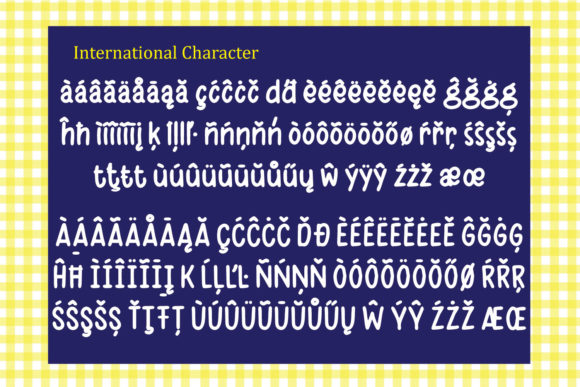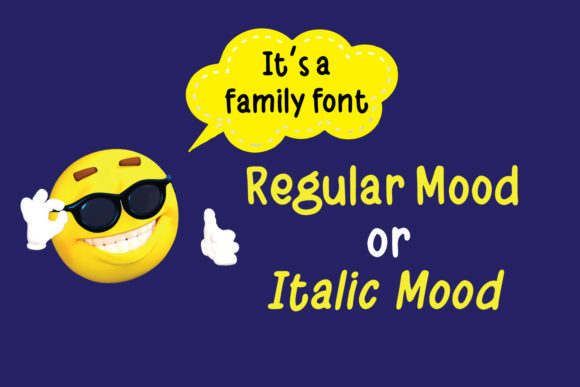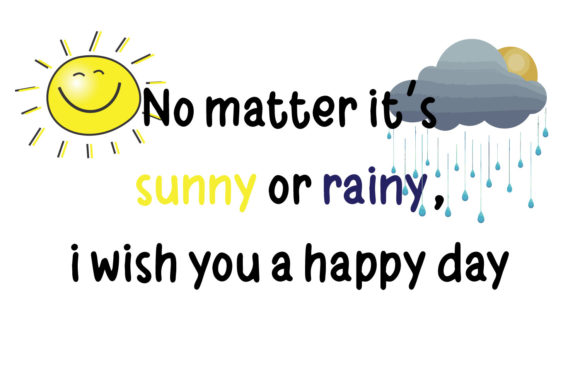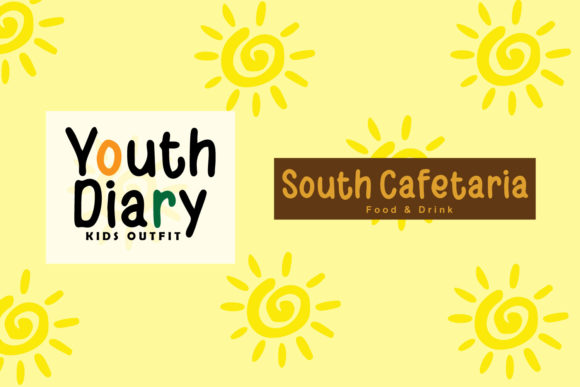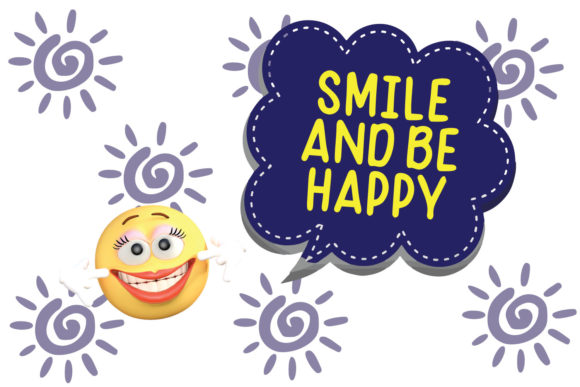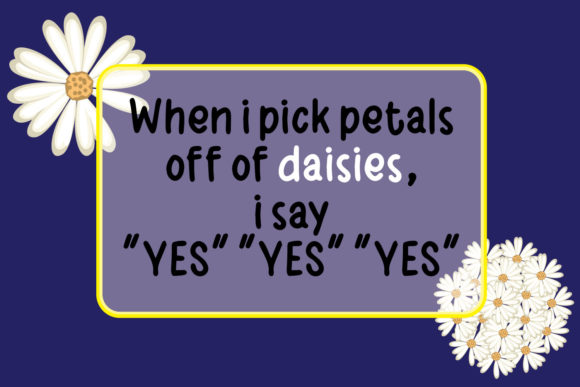
Introduction to Daily Mood Font
Daily Mood is a simple and neat lettered display font.
Add this font to your creative ideas and notice how it will make them stand out .
Key Features of Daily Mood Font